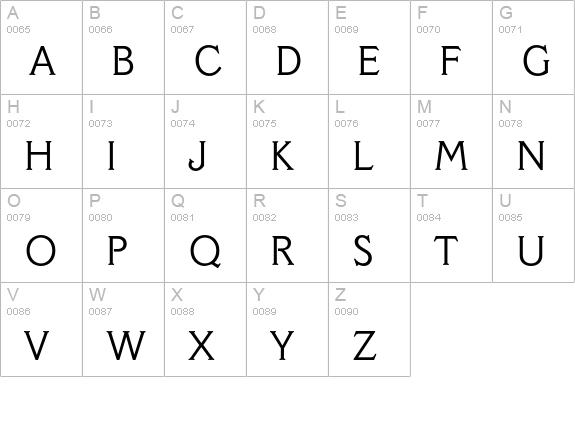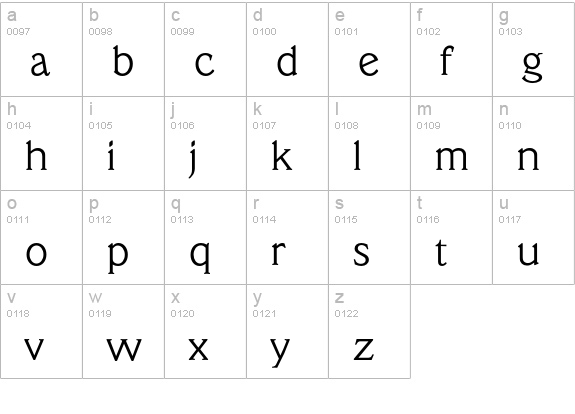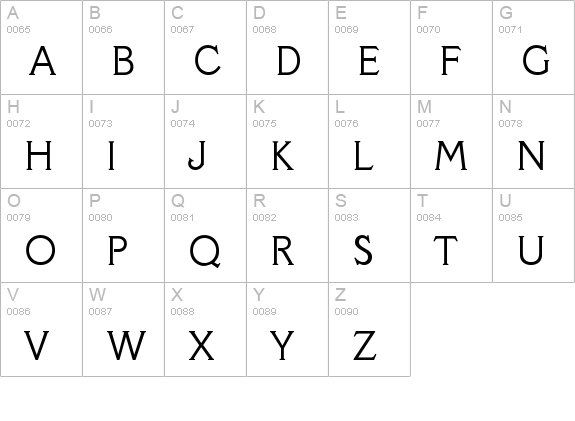
Veracruz-Light is a refined, elegant variant in the Veracruz typeface family \xE2\x80\x94 well suited to elegant body text, refined sub-headings, and luxury branding.
Veracruz-Light font is a beautiful and versatile typeface that exudes elegance and sophistication. Its sleek and slender letterforms make it perfect for a wide range of design projects, from branding and logo design to editorial layouts and website headers. This font's effortless curves and gentle strokes create a sense of fluidity and grace, making it a popular choice among designers looking to add a touch of refinement to their work. Its clean and minimalist aesthetic ensures legibility, while still maintaining a sense of uniqueness and personality. One of the best things about Veracruz-Light font is that it is free. Yes, you read that right – this stunning typeface is freely available to download at FontsMarket.com. This means that you can elevate your designs without breaking the bank, making it an ideal choice for both professional designers and hobbyists alike. Whether you're designing a high-end fashion magazine, a luxurious brand identity, or a modern website, Veracruz-Light font will effortlessly elevate your project to the next level. Its timeless appeal and versatility make it a valuable addition to any designer's toolkit. Download Veracruz-Light font for free at FontsMarket.com and unlock the potential to create stunning, sophisticated designs that leave a lasting impression. Don't miss out on this incredible opportunity to enhance your work with this elegant and freely available typeface.